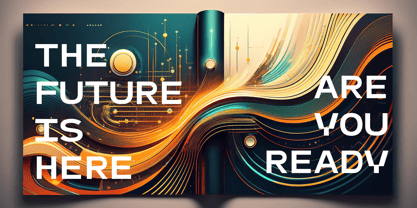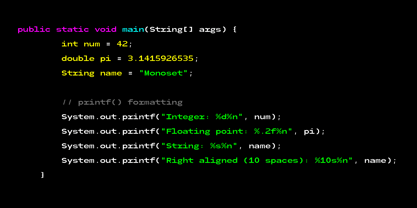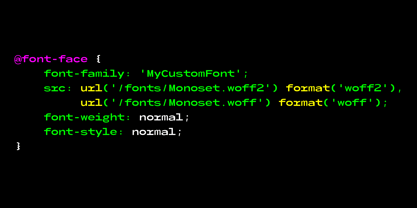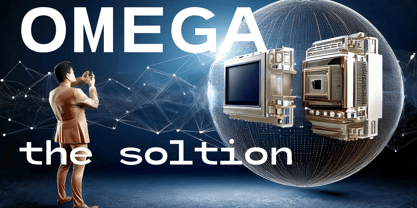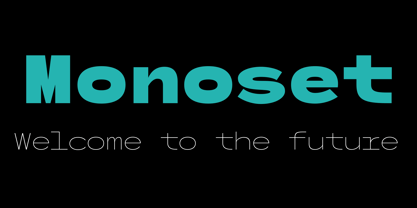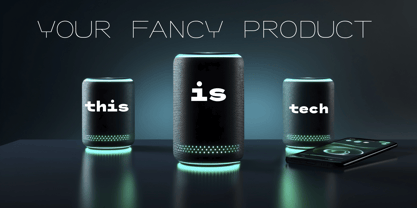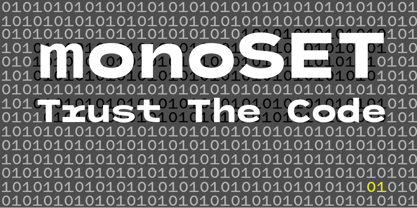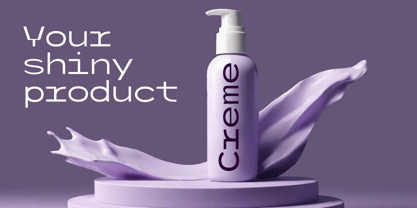
Monoset
by Brave Type
The Monoset Font Family was designed by Leonhard Katschner and published by Brave Type. Monoset contains 7 styles and family package options. More about this family
Monoset – A Precise and Modern Monospaced Typeface
Monoset is a clean, versatile monospaced typeface designed for developers, designers, and typographers who value precision and readability. With a balanced geometric structure and subtle humanist touches, Monoset offers a modern alternative to traditional fixed-width fonts.
Perfect for code, technical documentation, terminal interfaces, and minimalist design projects, Monoset combines clarity with personality. Its consistent character spacing ensures optimal legibility, while its refined letterforms add warmth to an otherwise rigid genre.
Whether you're crafting elegant code, designing a sleek UI, or setting text in a futuristic editorial layout, Monoset delivers precision, clarity, and style.